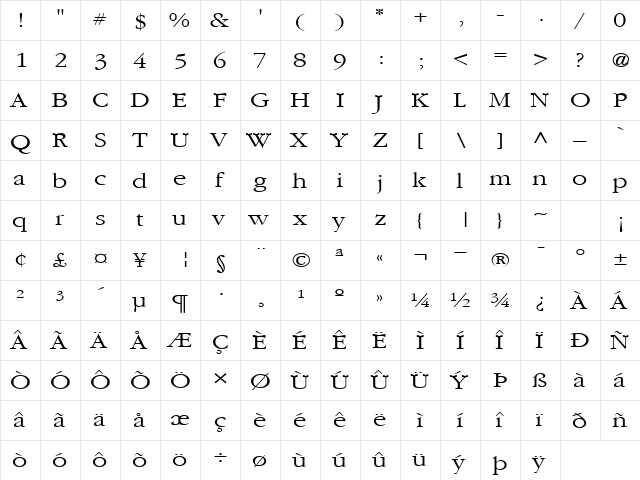
ElvisSaxHorn45 Regular Font Preview
ElvisSaxHorn45 Regular
Design Context for ElvisSaxHorn45 Typeface
ElvisSaxHorn45 takes a measured approach to typography — its balanced proportions and neutral character make it a reliable workhorse for both digital and print work.